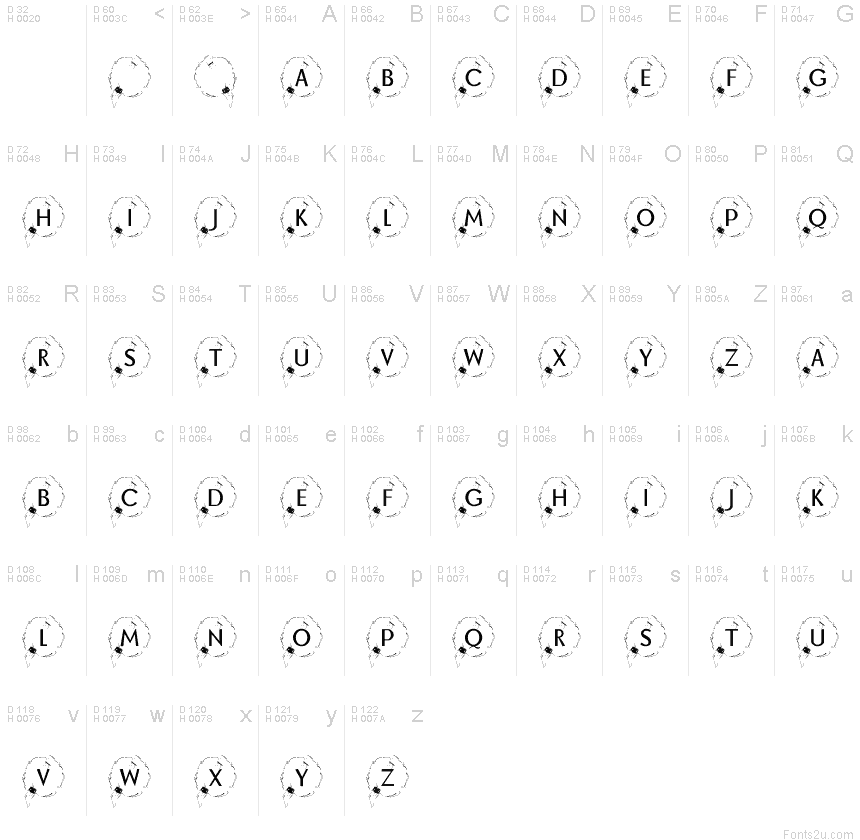
KR Happy New Year 2002
KR Happy New Year 2002 font by Katsfunfonts is a free decorative display typeface that turns every letter into its own tiny celebration. Each character sits inside a sketched party balloon ringed with confetti, streamers, and a jaunty party hat, giving your text a hand-drawn, slightly scribbly charm. The clean, simple interior letters keep it readable while the illustrated outlines deliver that noisy, midnight-countdown energy.
Using KR Happy New Year 2002, you can dress up New Year’s Eve invitations, party flyers, greeting cards, classroom worksheets, festive social posts, and scrapbooking titles in seconds. This free font shines when used big, so let it headline while you pair it with a plain sans serif for body text to keep things balanced and easy to read.